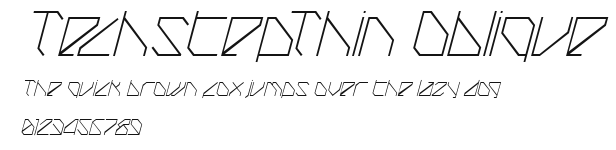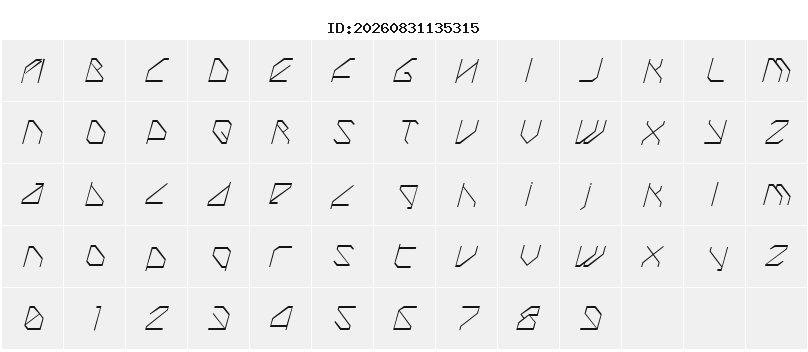
• Font Name: TechstepThin Oblique
About TechstepThin Oblique.ttf
TechstepThin Oblique.ttf is a modern, elegant sans-serif font designed for ultimate readability and visual harmony. Perfect for branding, headlines, web design, and print materials.